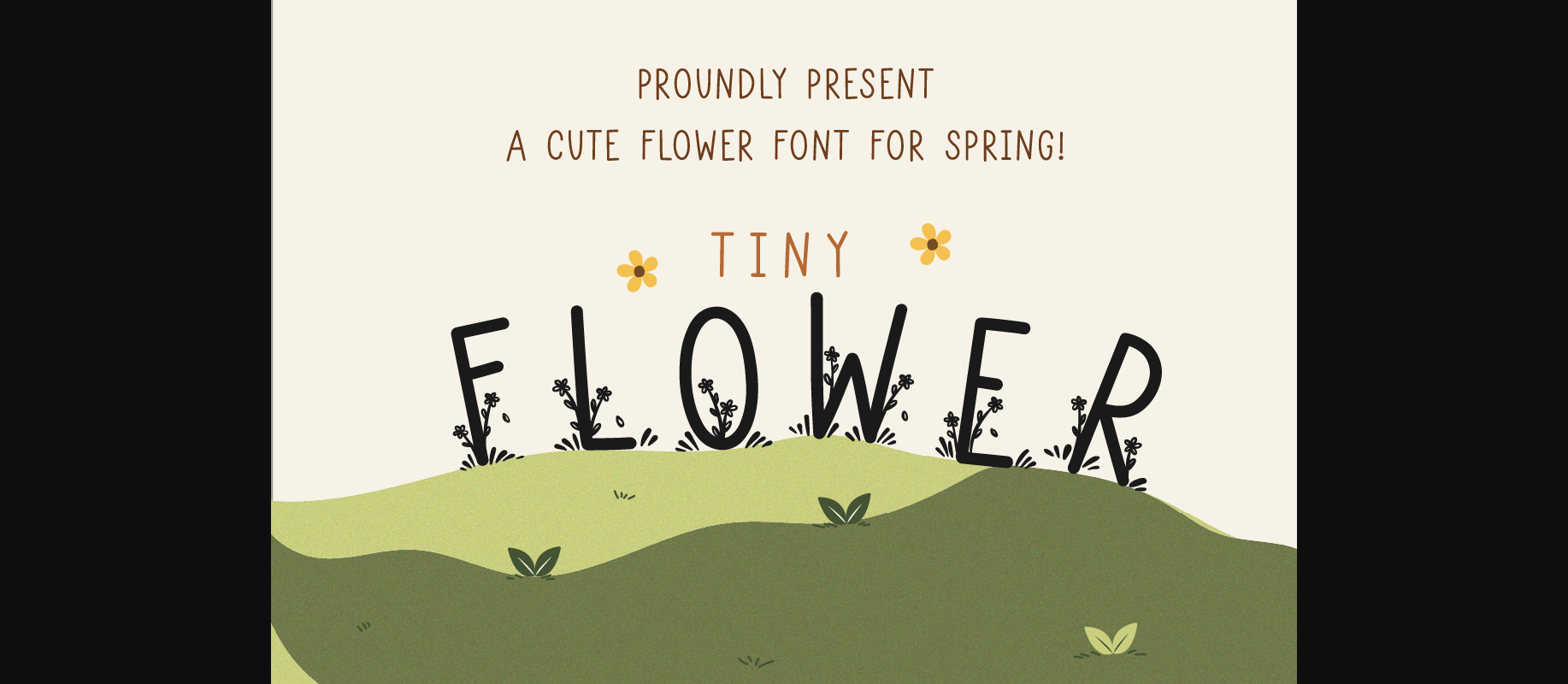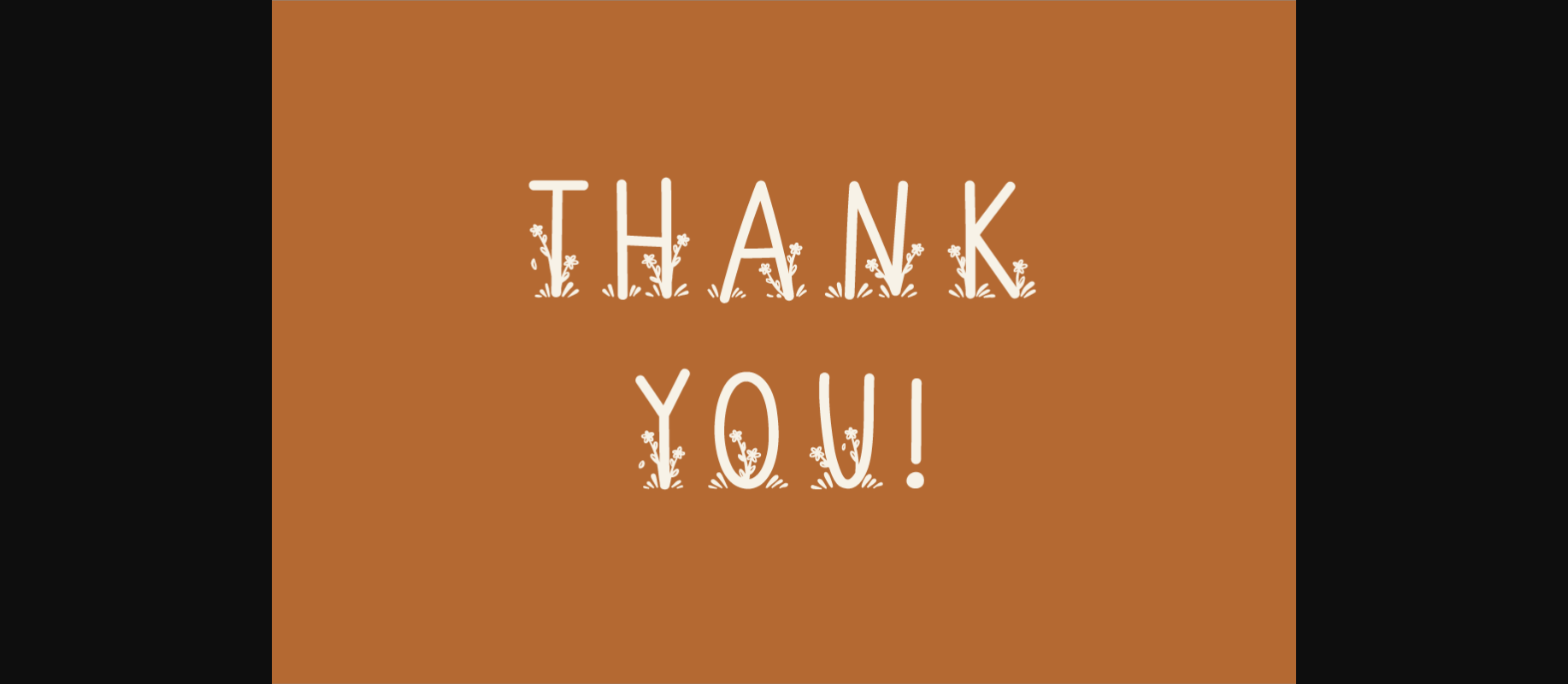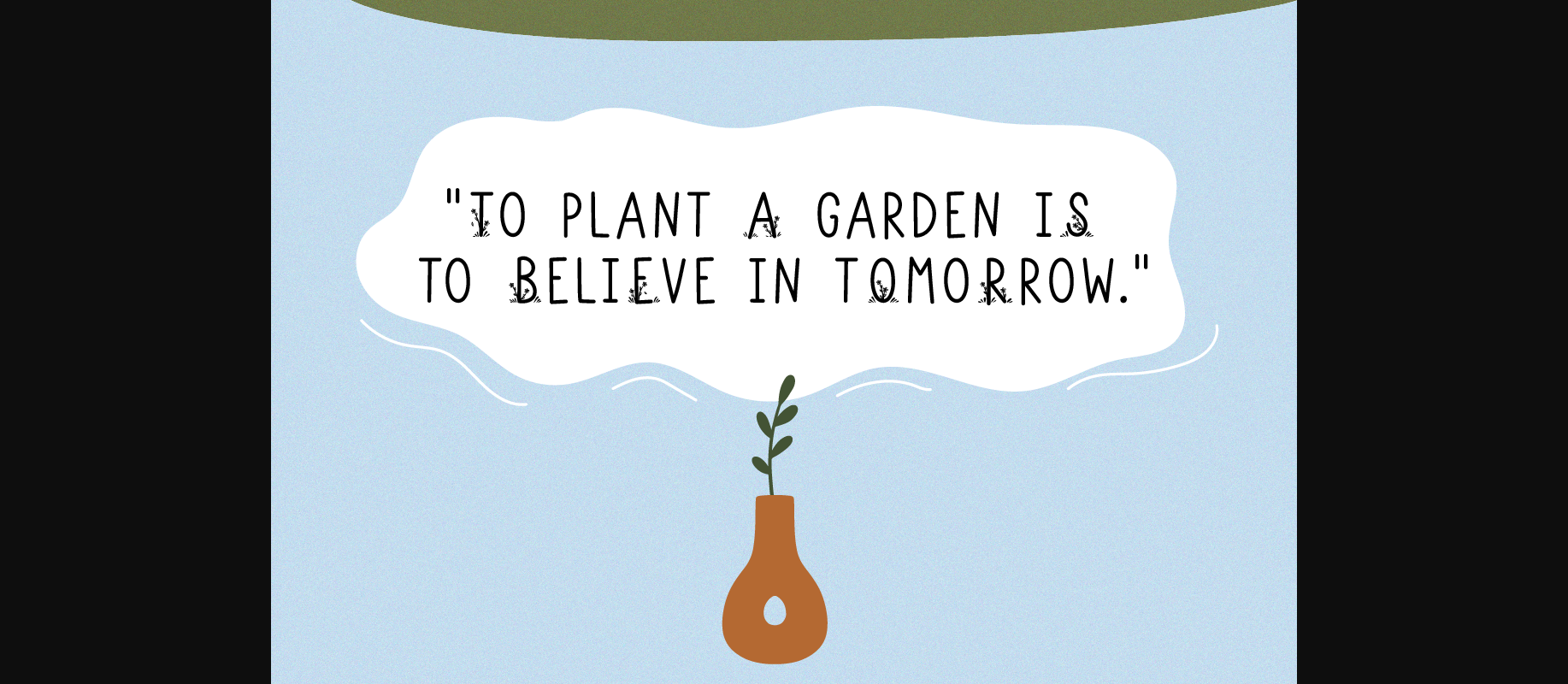
About Tiny Flowers Font
Tiny Flowers is a cute flower decorative font. It is perfect for Spring and summer projects, shirts, Easter designs, invitation cards, mugs, stickers, playful quotes, creating posters, logos, greeting cards, packaging, decorating the illustration and so much more!